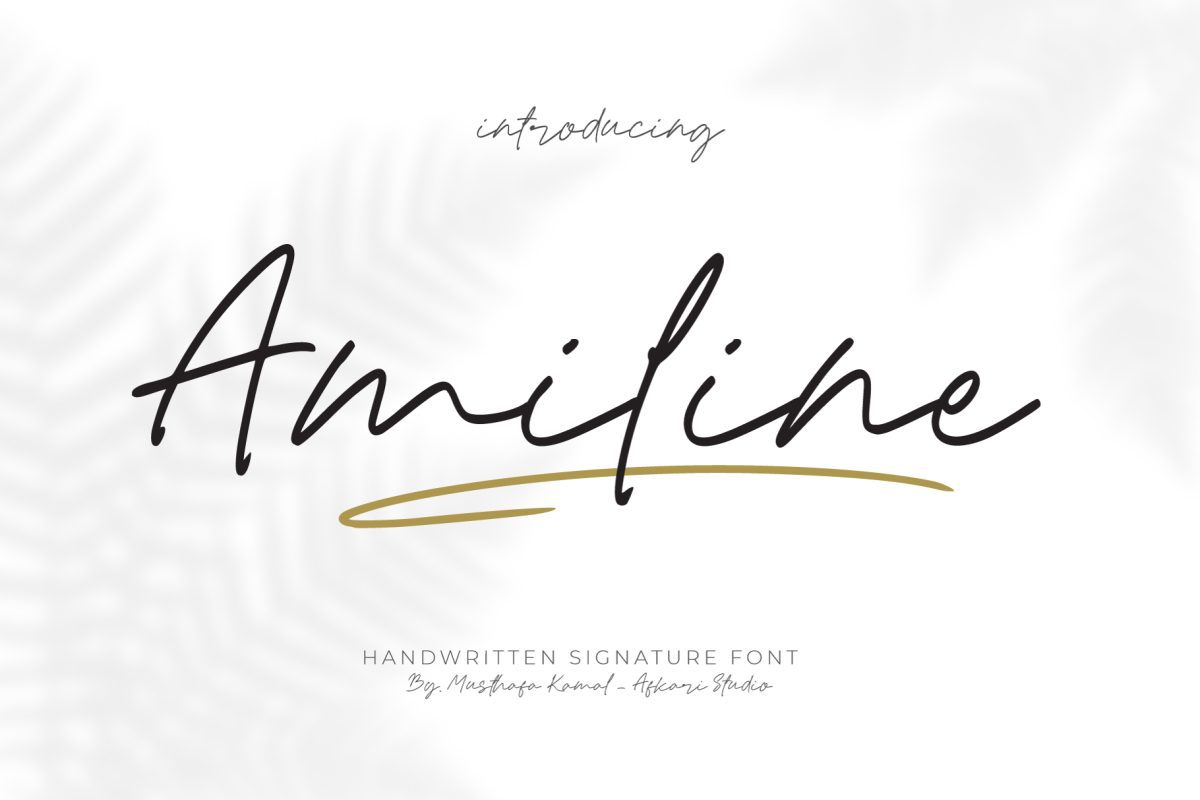
Amiline Handwritten Signature Font
Amiline Handwritten Signature Font is a Signature Handwriting Font script that makes with natural line handwriting. This font is suitable for any branding of your design needs, wedding invitation, romantic project, studio brand, logo, invitations, social media posts, clothing, invitation, poster, cafe/resto sign and others.
– Uppercase, Lowercase, Number, and Punctuation
– Standart and Special Ligatures
– Mültîlíñgúãl Sùppört for; ä ö ü Ä Ö Ü ß ¿ ¡ etc.